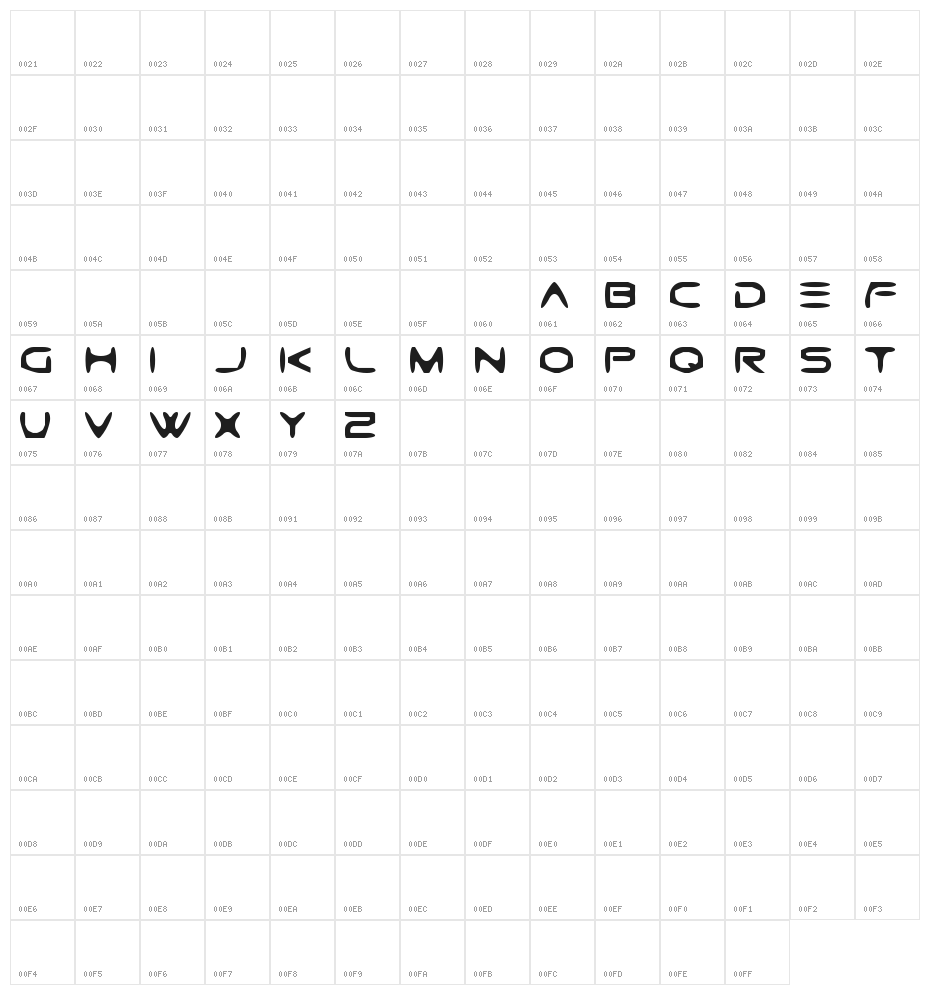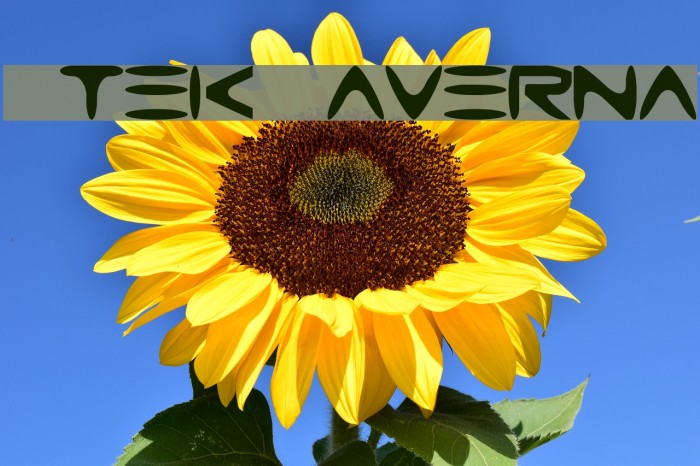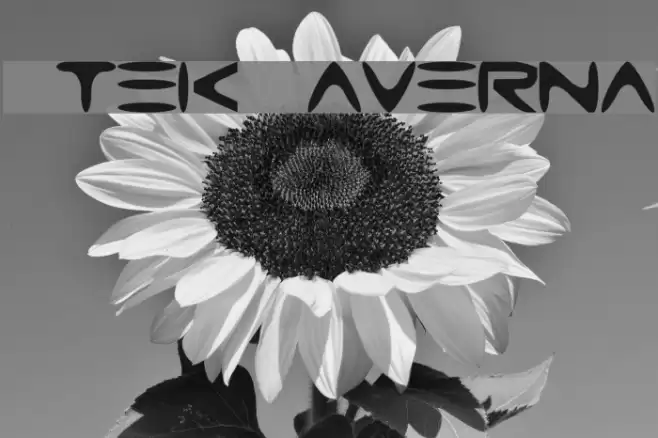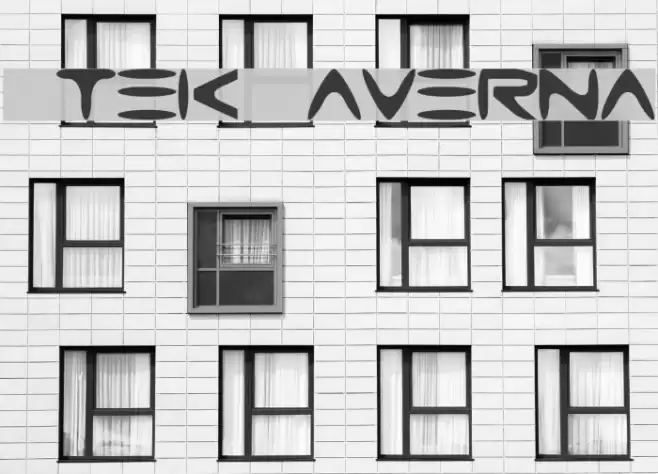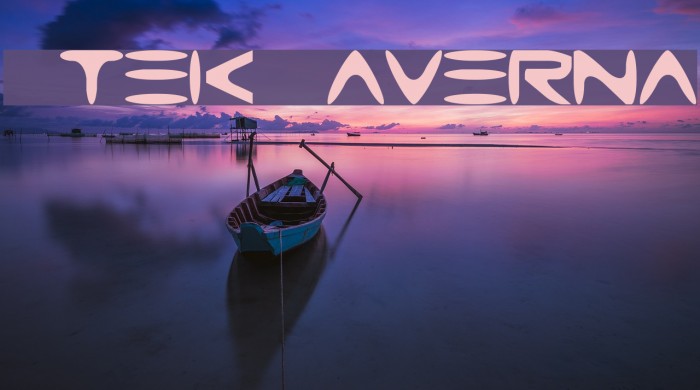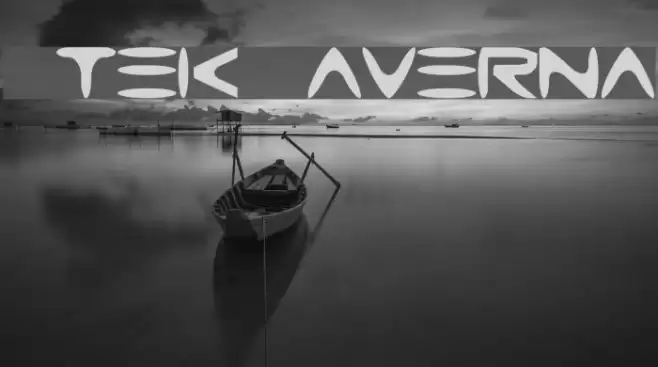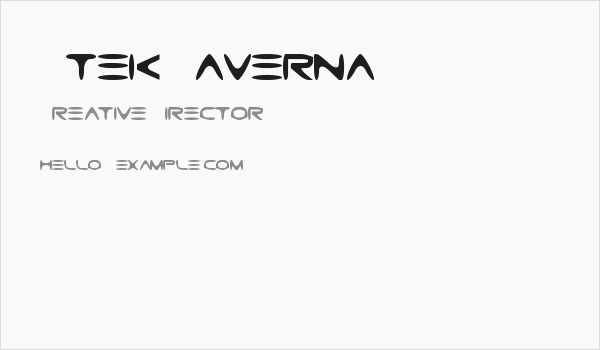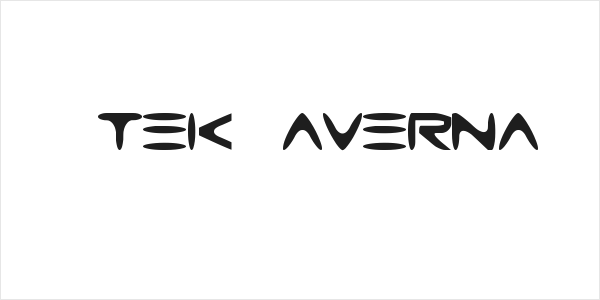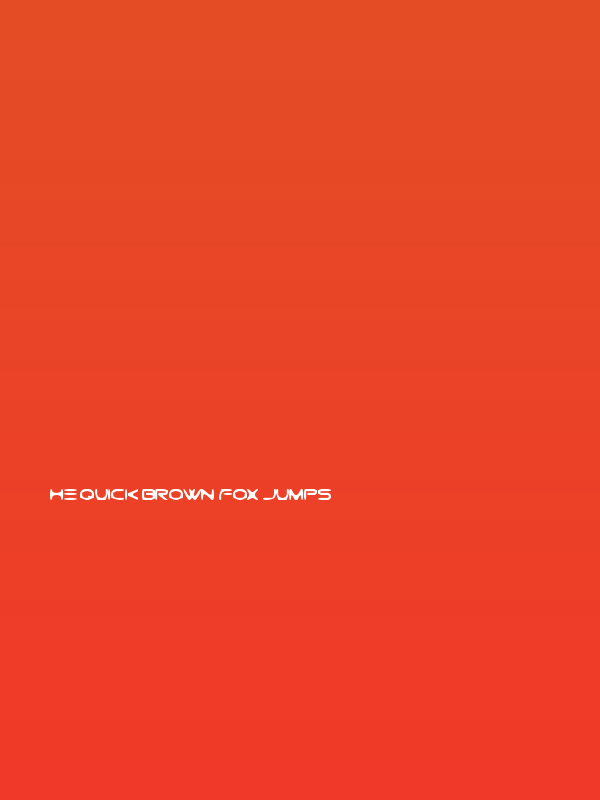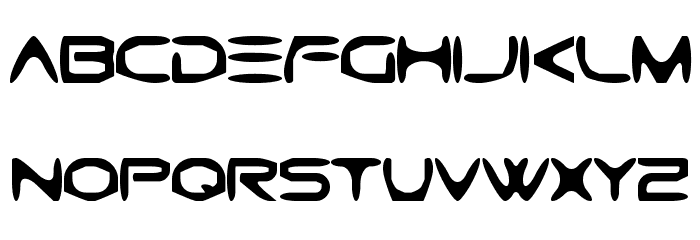
Gtek Caverna Font
Gtek Caverna Description
This font features a futuristic and geometric design, characterized by its bold and angular letterforms. The characters exhibit a unique blend of sharp edges and smooth curves, creating a dynamic and eye-catching appearance. The uppercase letters are particularly striking, with a consistent height and width that enhances readability while maintaining a distinct style. The font's design is reminiscent of sci-fi themes, making it suitable for projects that require a modern and technological aesthetic. Its boldness ensures that it stands out in any context, making it ideal for headlines and display purposes.
| Use Case | Headlines, Logos, Display text |
| Proposed Projects | Ideal for sci-fi themed designs, technology branding, video game titles, and futuristic posters. |